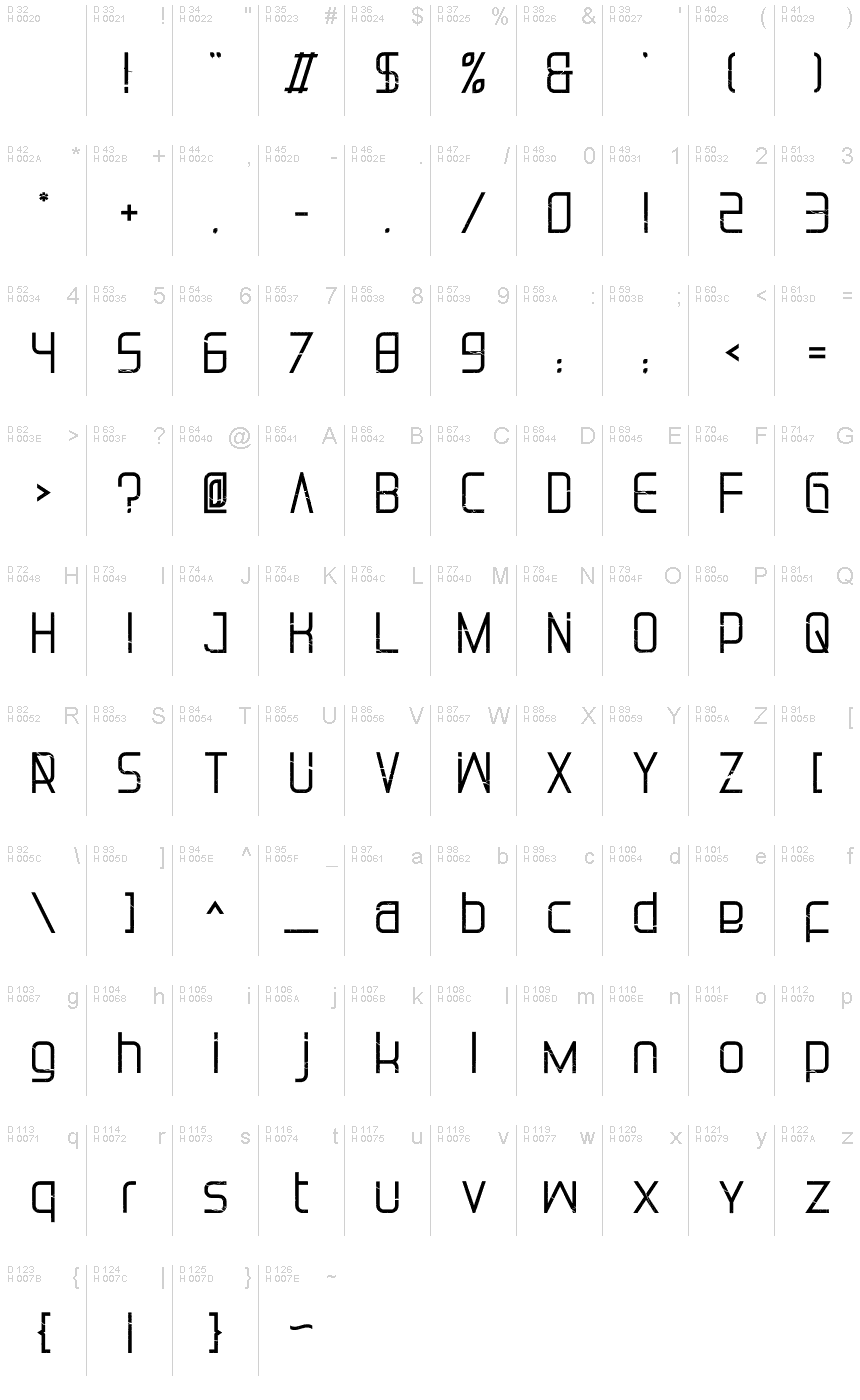
Pablo Killer
Introducing Pablo Killer, a mesmerizing creation by Adatype Studio. This captivating display font boasts an eroded style that adds a gritty edge to any design. With its light weight and semi-condensed width, Pablo Killer is perfect for projects seeking an artistic touch. Elevate your branding with eye-catching logos, posters, or album covers. Want to add a vintage vibe to your website? Look no further! Whether it's fashion campaigns or music festivals, this font is the ultimate choice for those who crave uniqueness and creativity. Unleash the killer within with Pablo Killer!